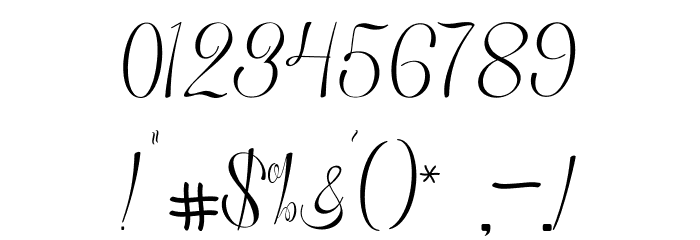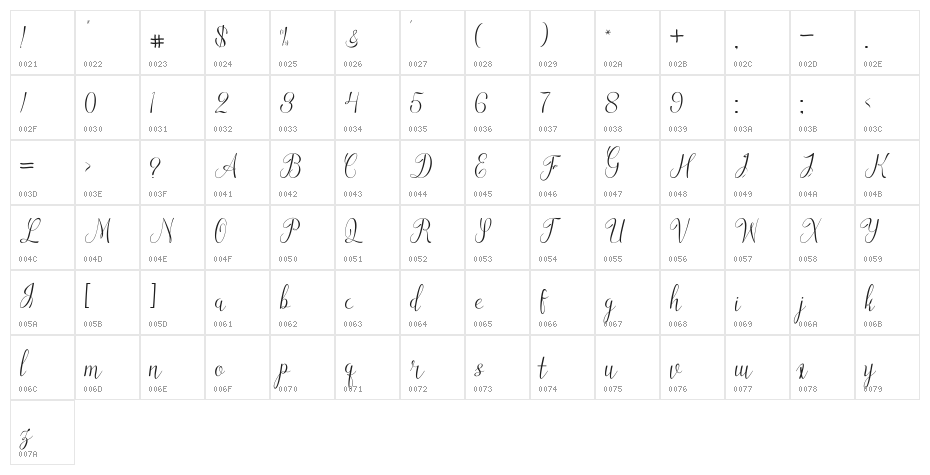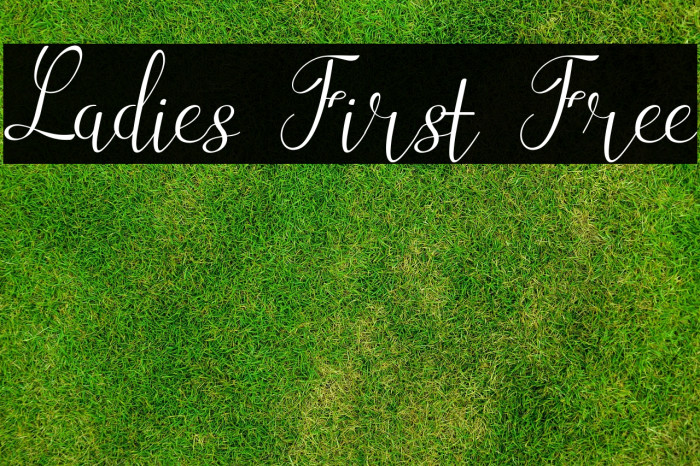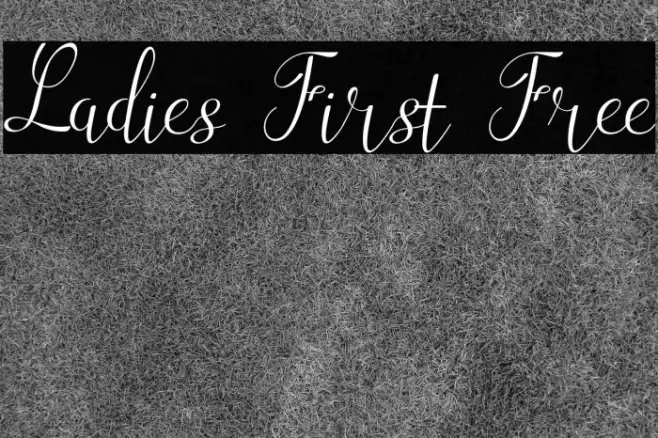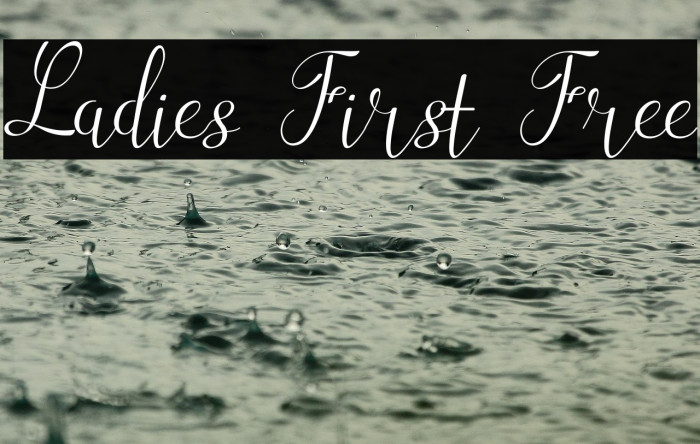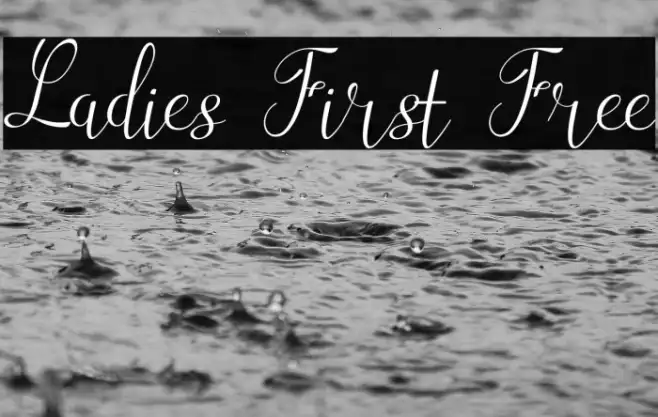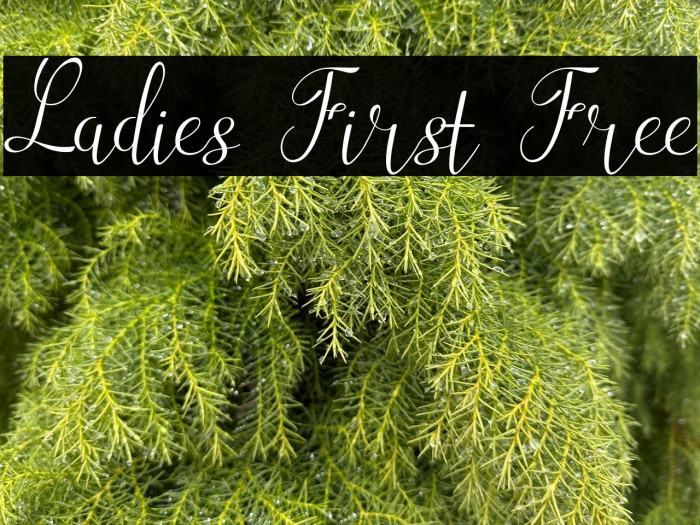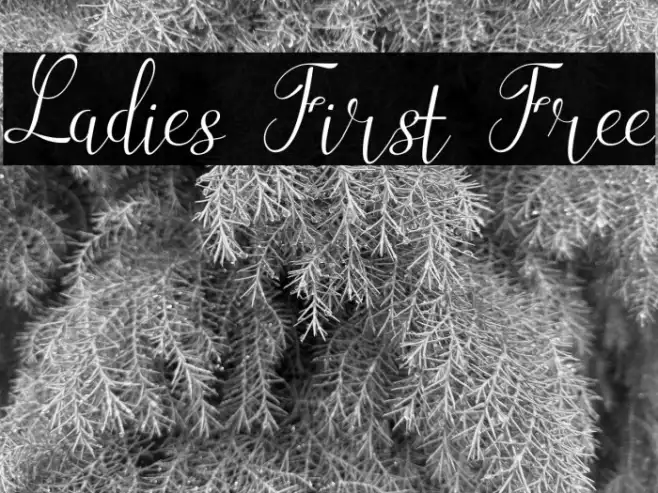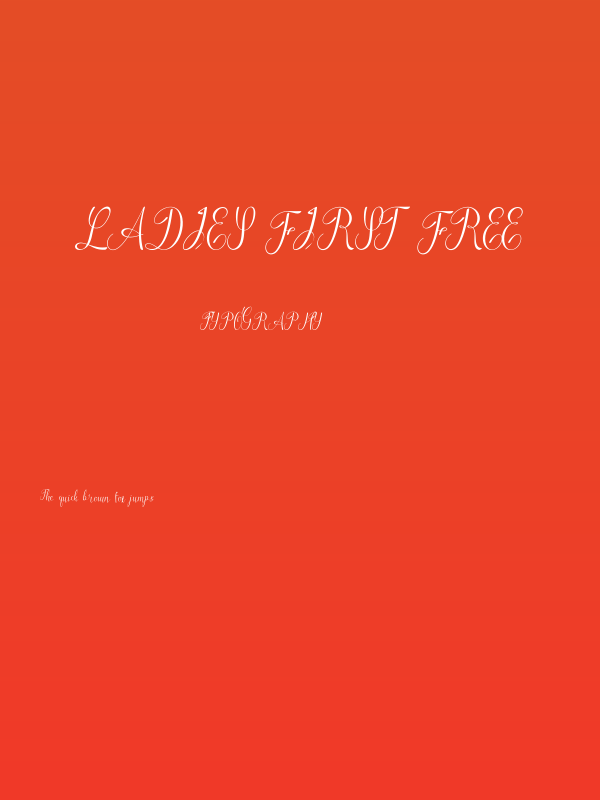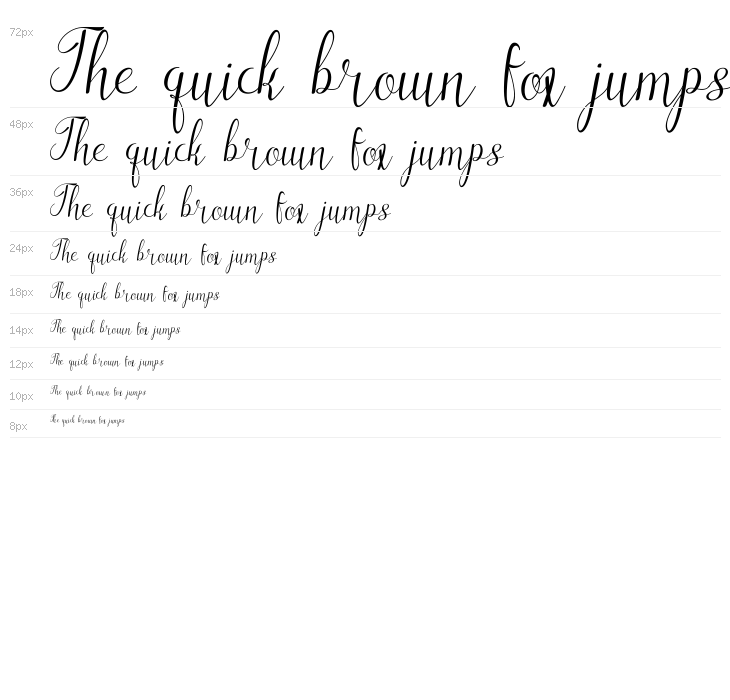
Ladies First Free Font
Ladies First Free Description
This elegant script font features a flowing, cursive style with delicate, sweeping curves and loops. The uppercase letters are ornate, with intricate flourishes that add a touch of sophistication and grace. The lowercase letters maintain a consistent flow, creating a harmonious and fluid appearance. The numerals are designed with the same elegant curves, ensuring a cohesive look across all characters. Special characters are thoughtfully crafted to match the overall aesthetic, making this font ideal for projects that require a touch of elegance and refinement.
Overall StyleElegant, Decorative
Use CaseLogos, Invitations, Decorative text
Proposed ProjectsIdeal for wedding invitations, elegant branding, greeting cards, and upscale packaging.